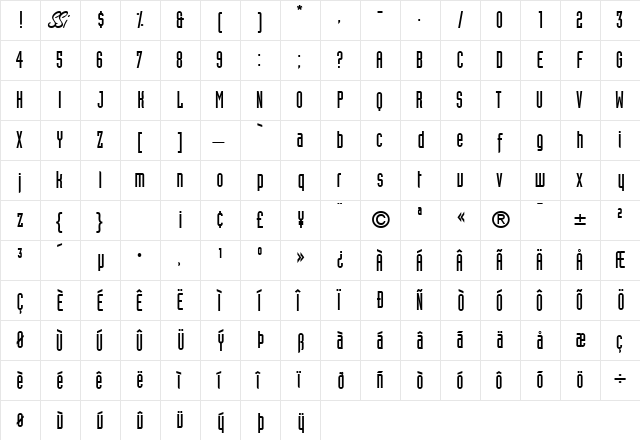
AssemblySSK Regular Font Preview
AssemblySSK Regular
Design Context for AssemblySSK Typeface
AssemblySSK takes a measured approach to typography — its balanced proportions and neutral character make it a reliable workhorse for both digital and print work.